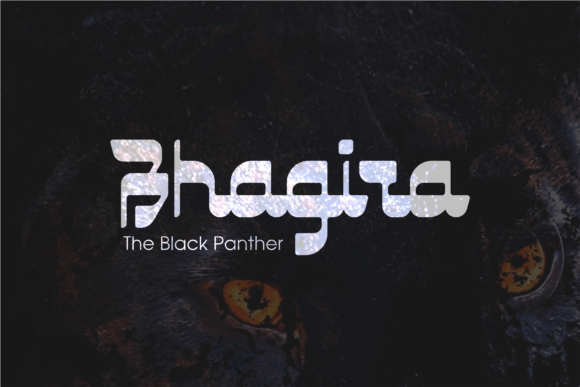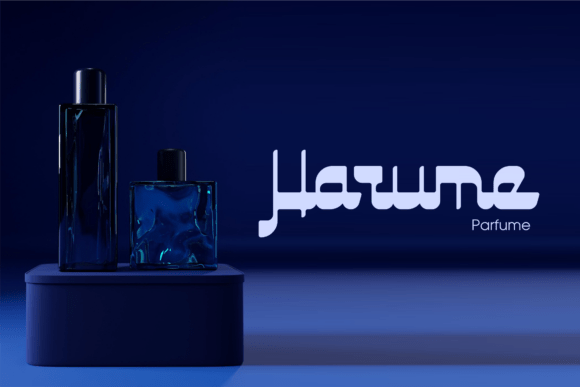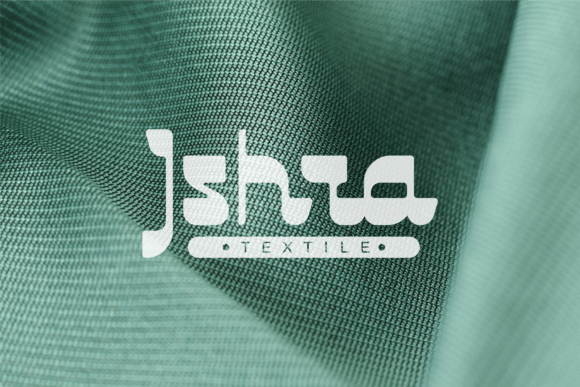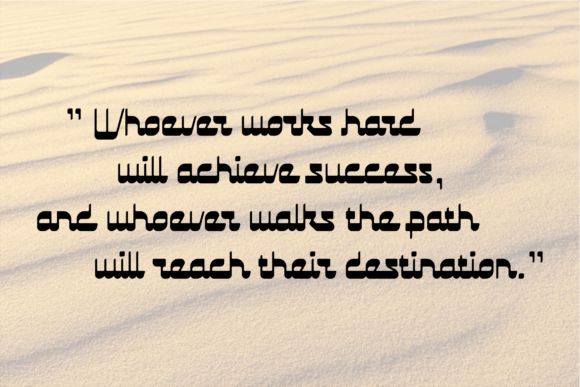
Arabana Font: A Modern Take on Arabic Calligraphy and Design
In the world of typography, fonts play a crucial role in conveying the tone and aesthetic of a brand or design. For designers and crafters looking to add a touch of Middle Eastern flair to their work, the Arabana font is an excellent choice. This modern Arabic-style font brings a unique blend of elegance, intricacy, and cultural richness, making it perfect for branding, packaging, and event materials.
The Inspiration Behind Arabana Font
Arabana font draws inspiration from traditional Middle Eastern calligraphy and design. The font’s creators aimed to capture the essence of Arabic script, which is renowned for its beautiful, flowing curves and intricate details. The result is a font that not only pays homage to the region’s rich cultural heritage but also offers a fresh, modern take on classic Arabic typography.
Characteristics of Arabana Font
Arabana font boasts several distinctive features that set it apart from other fonts. Some of its key characteristics include:
- Elegant Curves: Arabana font features smooth, flowing curves that evoke the beauty of Arabic calligraphy.
- Intricate Details: The font’s intricate details add a level of sophistication and cultural richness, making it perfect for designs that require a touch of elegance.
- Cultural Richness: Arabana font is deeply rooted in Middle Eastern culture, making it an excellent choice for designers looking to create authentic, region-specific designs.
Uses of Arabana Font
Arabana font is incredibly versatile and can be used in a variety of design applications, including:
- Branding: Arabana font is perfect for creating unique, memorable brand identities that reflect a company’s values and aesthetic.
- Packaging: The font’s elegant curves and intricate details make it an excellent choice for packaging designs that require a touch of sophistication.
- Event Materials: Arabana font can add a level of cultural richness and elegance to event materials, such as invitations, posters, and flyers.
Benefits of Using Arabana Font
Using Arabana font in your designs offers several benefits, including:
- Unique Aesthetic: Arabana font provides a fresh, modern take on Arabic typography, allowing designers to create unique, eye-catching designs.
- Cultural Authenticity: The font’s deep roots in Middle Eastern culture ensure that designs are authentic and respectful.
- Versatility: Arabana font can be used in a variety of design applications, making it a valuable addition to any designer’s toolkit.
Tips for Using Arabana Font
To get the most out of Arabana font, consider the following tips:
- Pair with Neutral Colors: Arabana font pairs well with neutral colors, such as beige, gray, and navy blue, which allow the font’s intricate details to take center stage.
- Use for Headlines: The font’s elegant curves and intricate details make it perfect for headlines and titles.
- Experiment with Ligatures: Arabana font features beautiful ligatures that can add an extra level of elegance to your designs.
Arabana font is a modern Arabic-style font that offers a unique blend of elegance, intricacy, and cultural richness. With its elegant curves, intricate details, and cultural authenticity, it’s perfect for designers and crafters looking to add a touch of Middle Eastern flair to their work. Whether you’re creating branding materials, packaging, or event materials, Arabana font is an excellent choice.